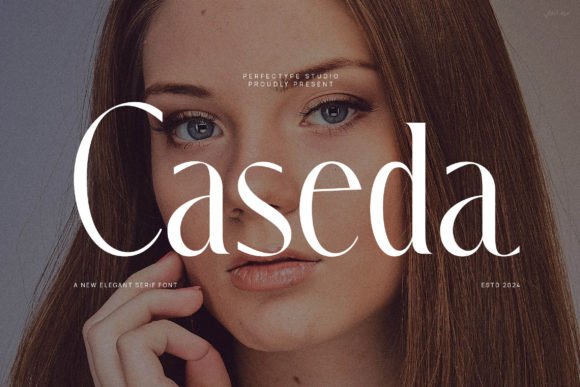
Caseda Font: Elevate Your Projects with Elegance and Sophistication
Caseda is an elegant serif font, that features a very delicate and classy look. Not too thin and not too thick, balanced and varied, Caseda was designed to enhance the beauty of your projects.
Key Features of Caseda Font
- Elegant Serif Design: Caseda boasts a sophisticated serif design that adds a touch of elegance to any project.
- Delicate and Classy Look: The font’s delicate and classy appearance makes it perfect for projects that require a refined and upscale feel.
- Balanced and Varied: Caseda’s balanced and varied design ensures that it is not too thin or too thick, making it suitable for a wide range of applications.
Uses of Caseda Font
Caseda font can be used in a variety of projects, including:
- Print and Digital Media: Caseda is suitable for use in print and digital media, such as magazines, newspapers, books, and websites.
- Branding and Advertising: The font’s elegant and sophisticated design makes it perfect for use in branding and advertising materials, such as logos, brochures, and posters.
- Packaging and Product Design: Caseda can be used in packaging and product design to add a touch of elegance and sophistication.
Benefits of Using Caseda Font
Using Caseda font in your projects offers several benefits, including:
- Enhanced Readability: Caseda’s clear and elegant design ensures that your text is easy to read, making it perfect for body text and headings.
- Unique and Memorable: The font’s unique and sophisticated design helps to create a lasting impression on your audience.
- Versatility: Caseda can be used in a wide range of projects, from print and digital media to branding and advertising.
Tips for Using Caseda Font
Here are some tips for using Caseda font effectively:
- Use it as a Headline Font: Caseda is perfect for use as a headline font, where its elegant and sophisticated design can make a lasting impression.
- Pair it with Other Fonts: Caseda can be paired with other fonts to create a unique and visually appealing combination.
- Experiment with Font Sizes: Experiment with different font sizes to find the perfect balance for your project.
Caseda Font vs. Other Fonts
Caseda font stands out from other fonts in several ways:
- Unique Design: Caseda’s elegant and sophisticated design sets it apart from other fonts.
- Versatility: Caseda can be used in a wide range of projects, making it a versatile font that can be used in many different contexts.
- Readability: Caseda’s clear and elegant design ensures that it is easy to read, making it perfect for body text and headings.
In conclusion, Caseda font is an elegant and sophisticated serif font that is perfect for projects that require a refined and upscale feel. Its delicate and classy design, balanced and varied strokes, and clear and elegant appearance make it suitable for use in a wide range of projects, from print and digital media to branding and advertising.